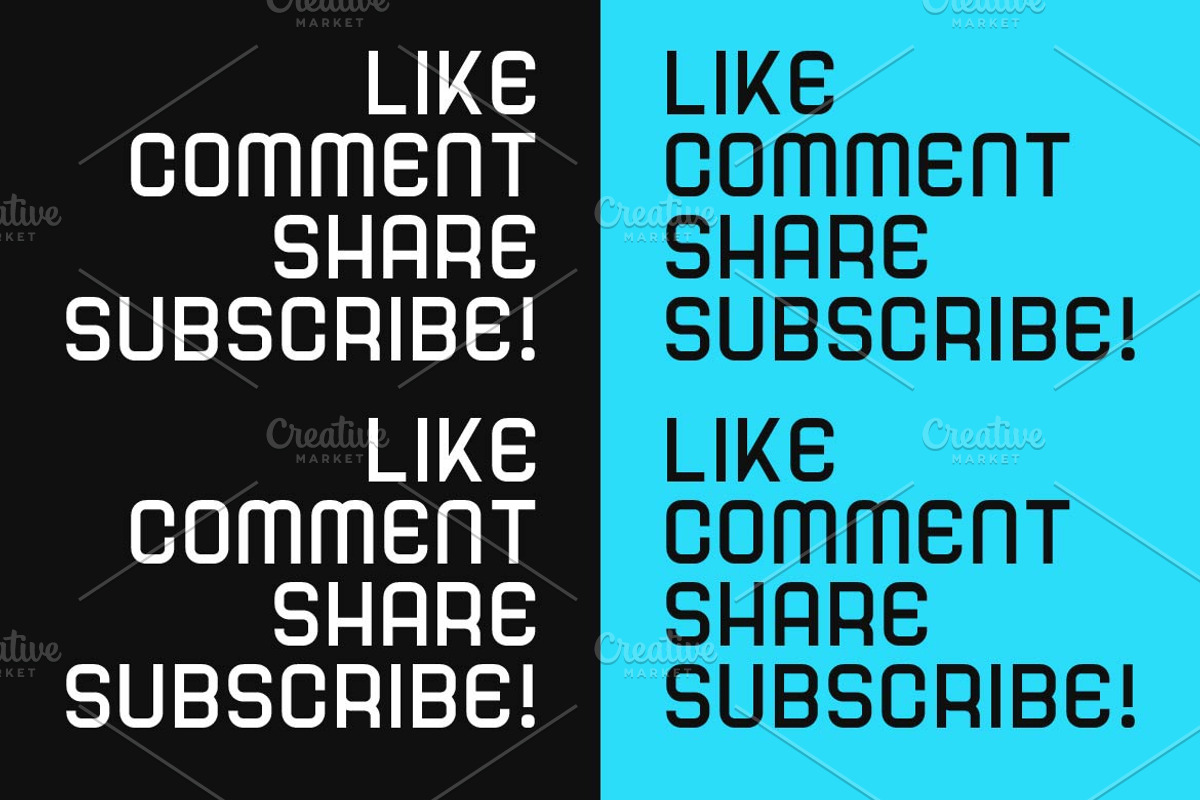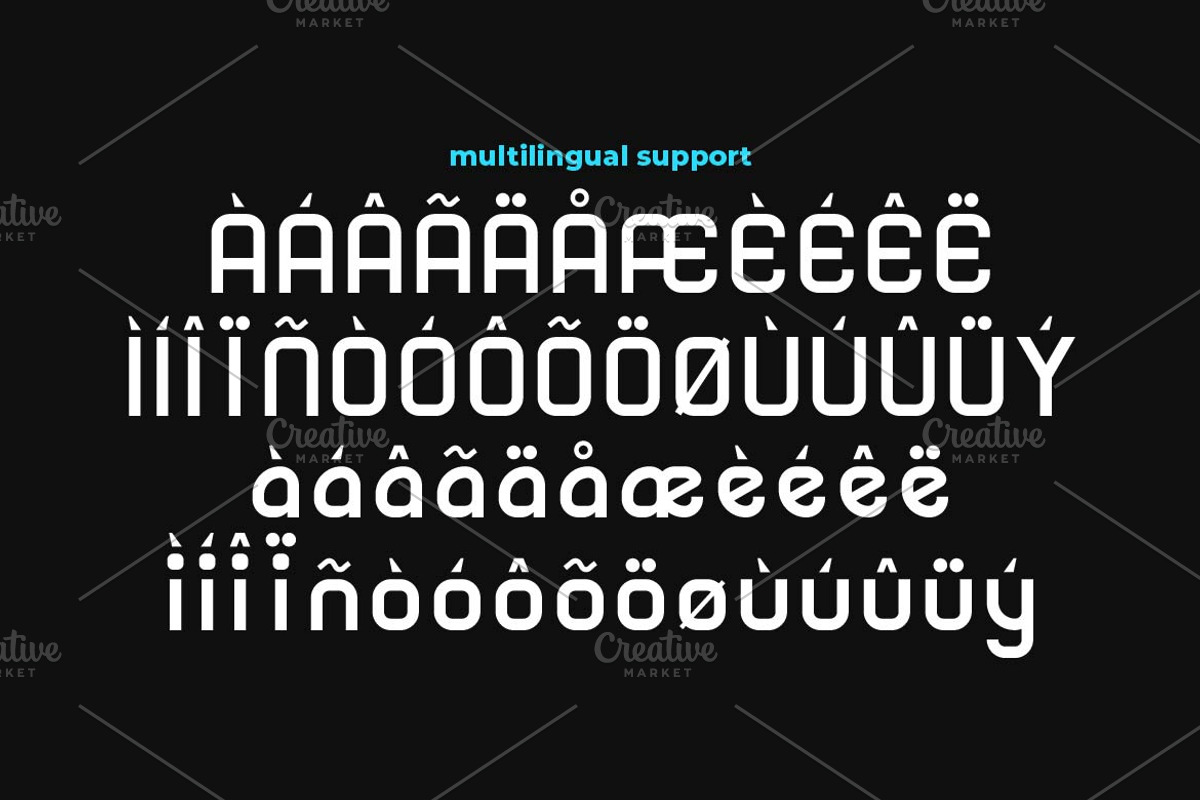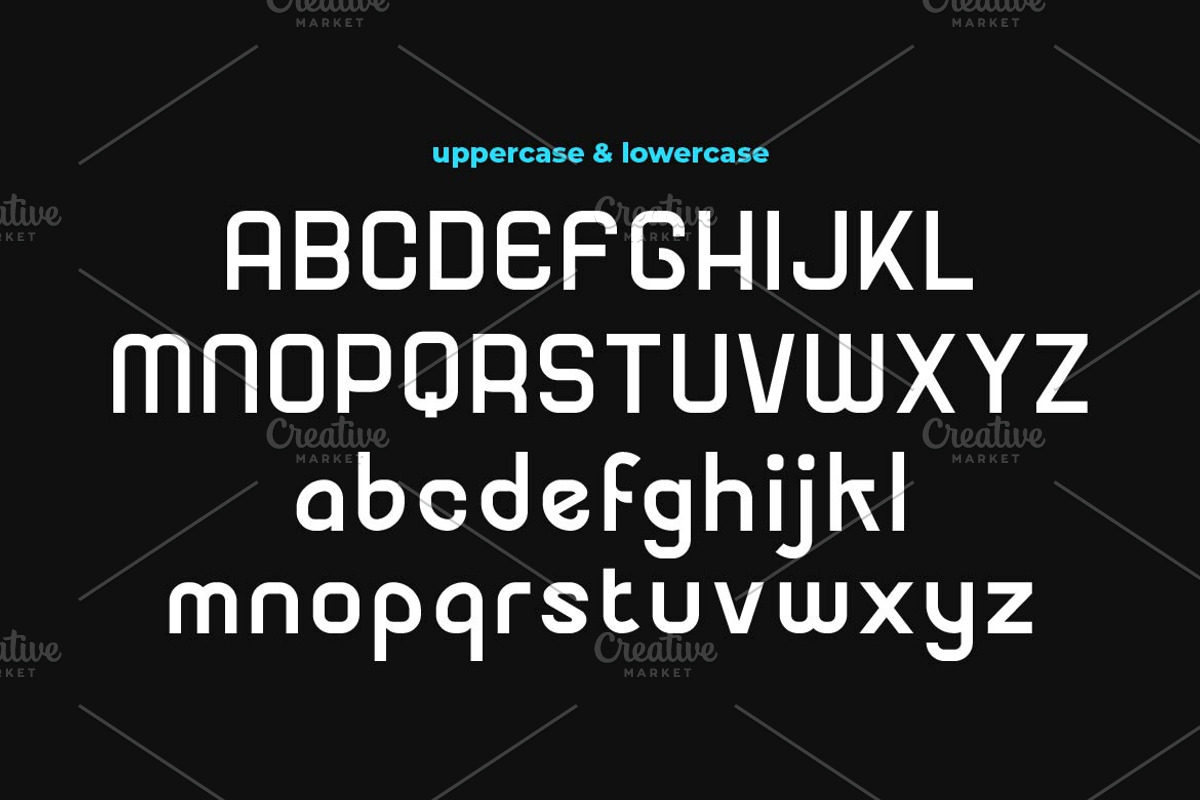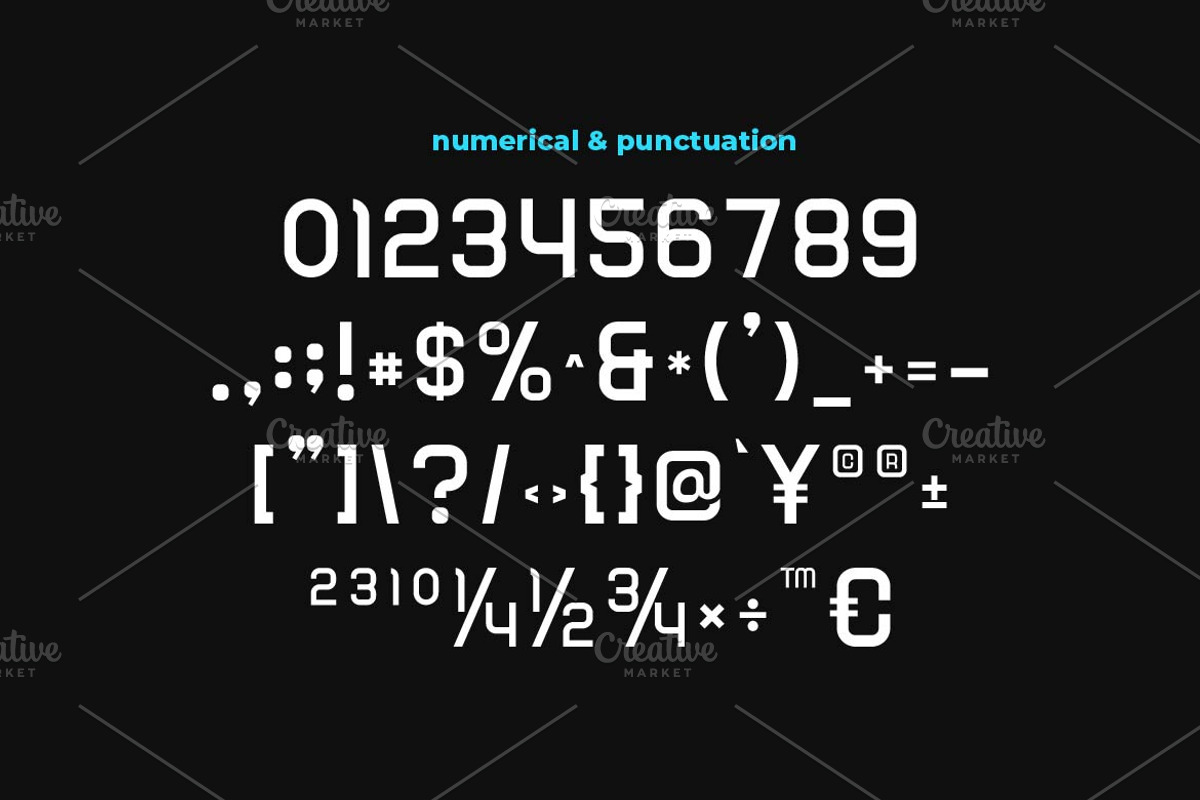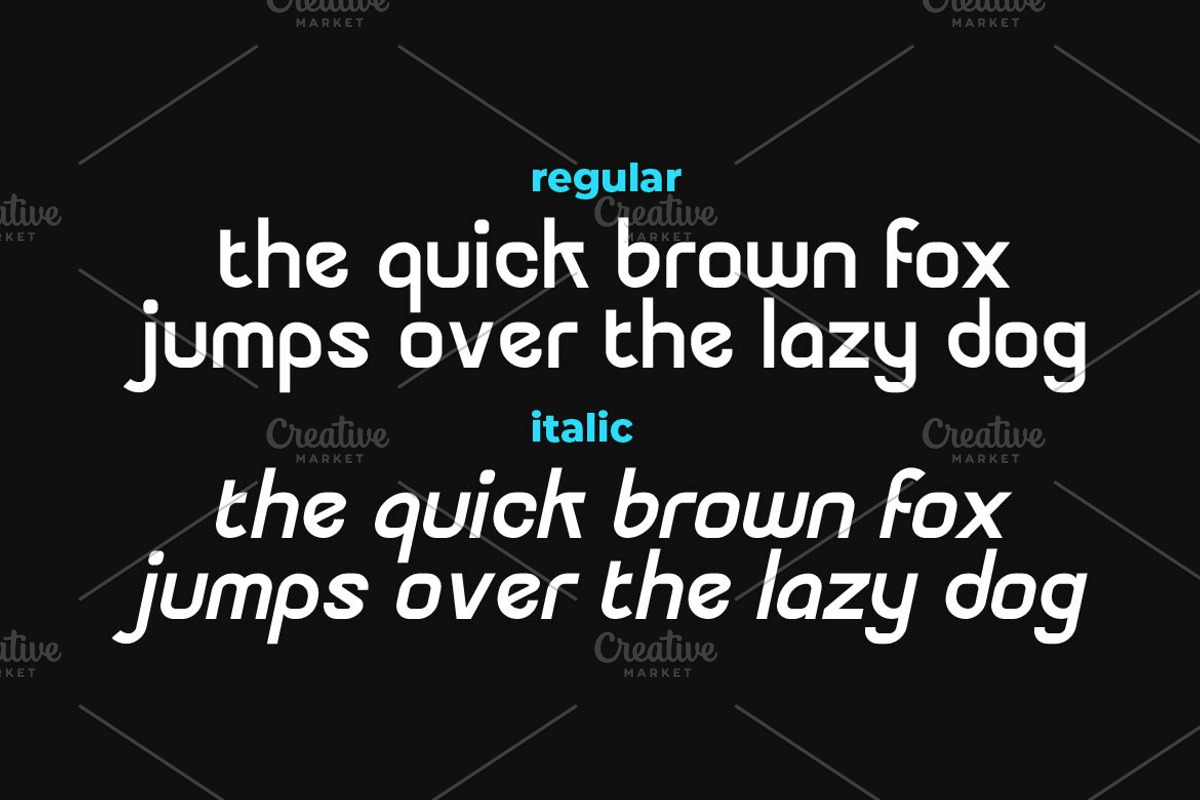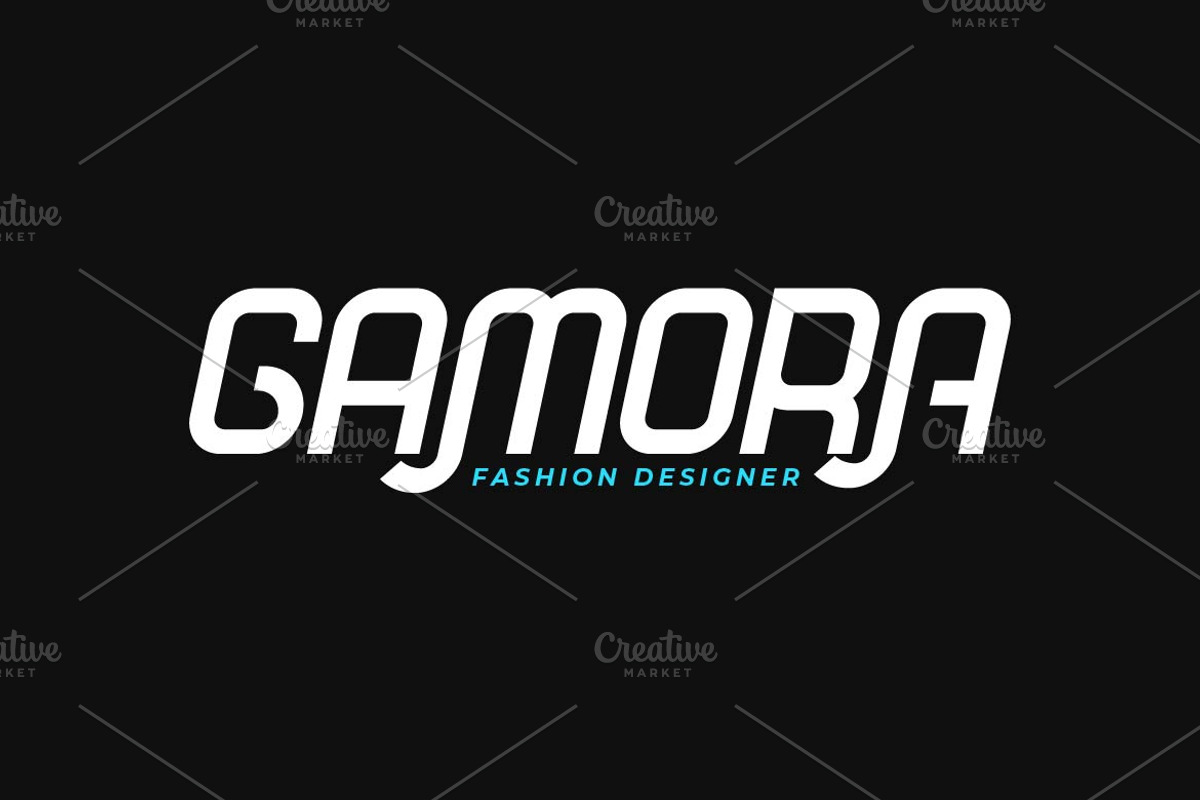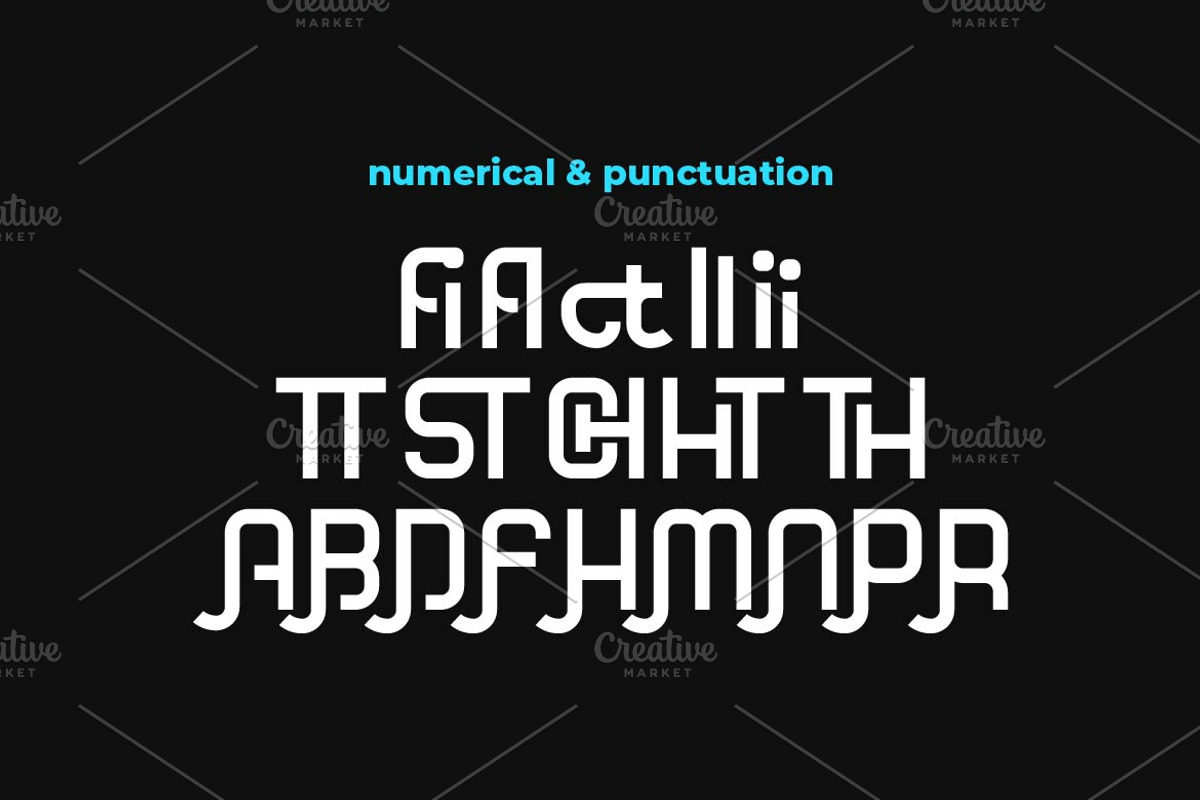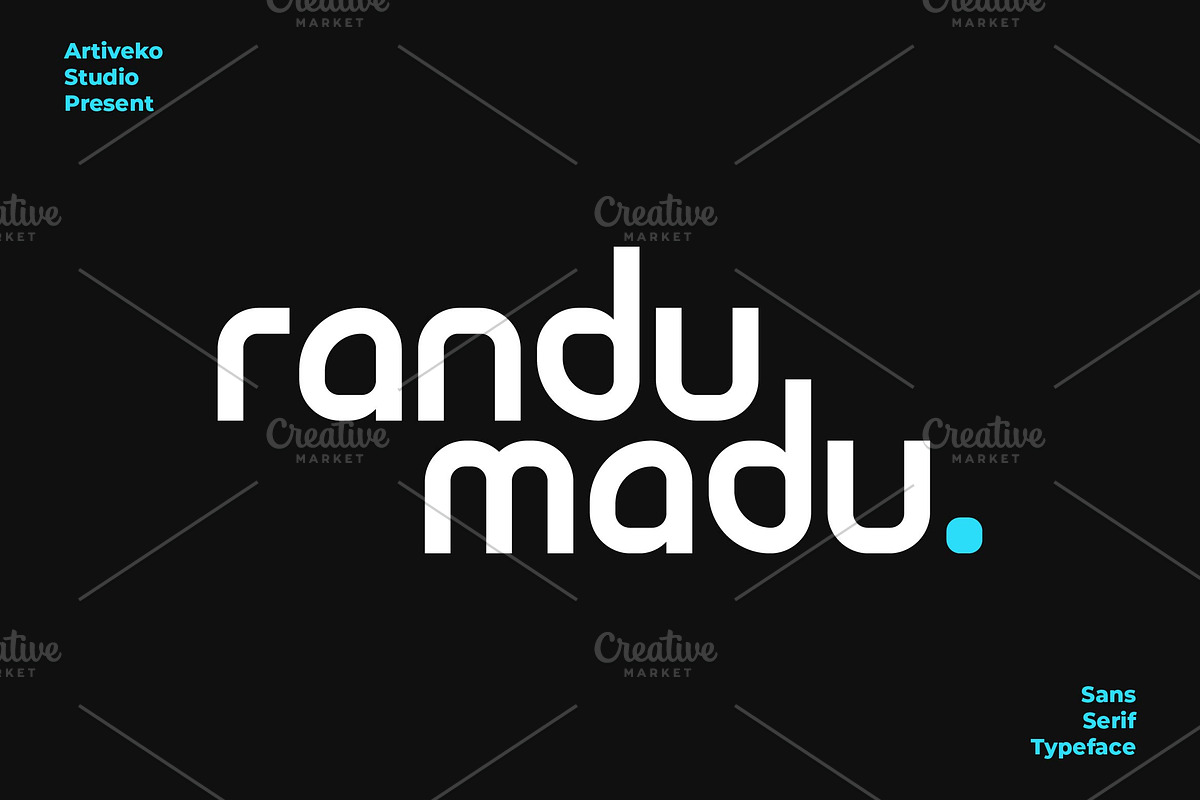
Randu Madu Logo Font
Randu Madu is a creative sans serif font designed with a unique and modern flair. Featuring smooth curves and stylish letterforms, this typeface is perfect for branding, logos, packaging, and editorial design. With multilingual support, ligatures, and alternates, Randu Madu offers versatility and originality, making it an excellent choice for projects that require a fresh, distinctive, and professional look.